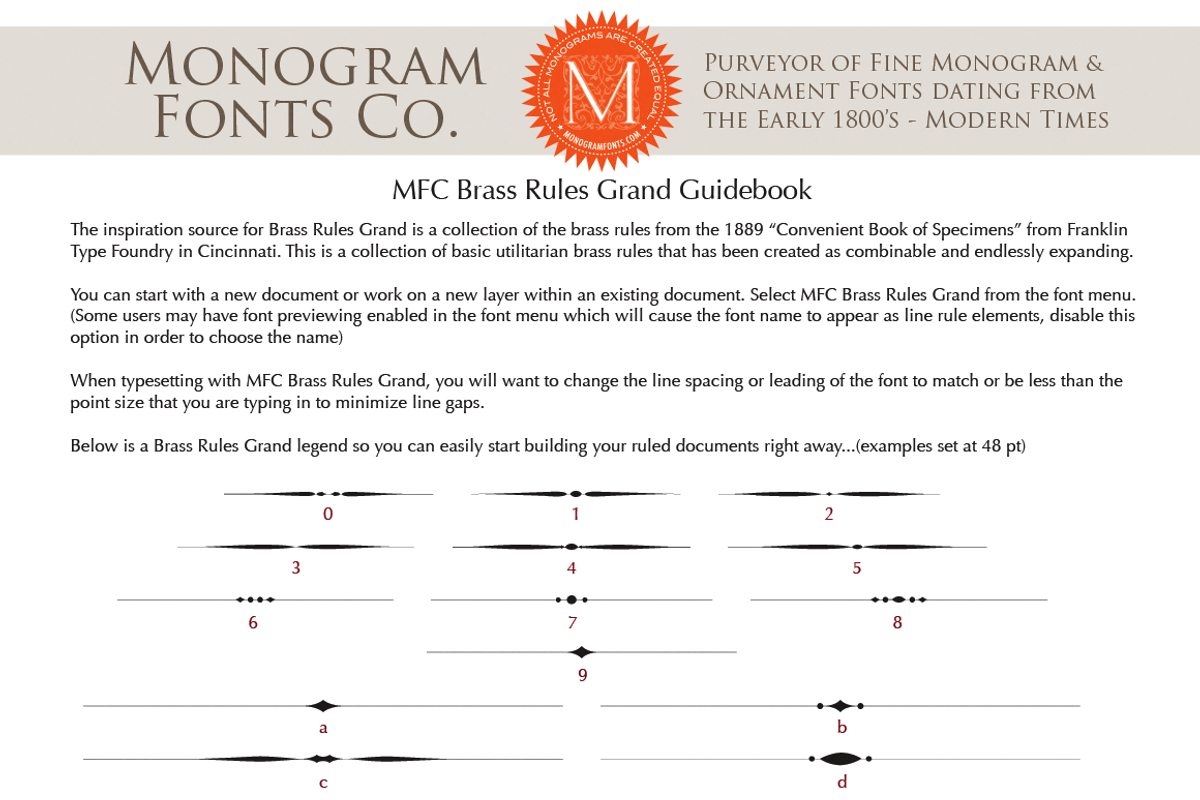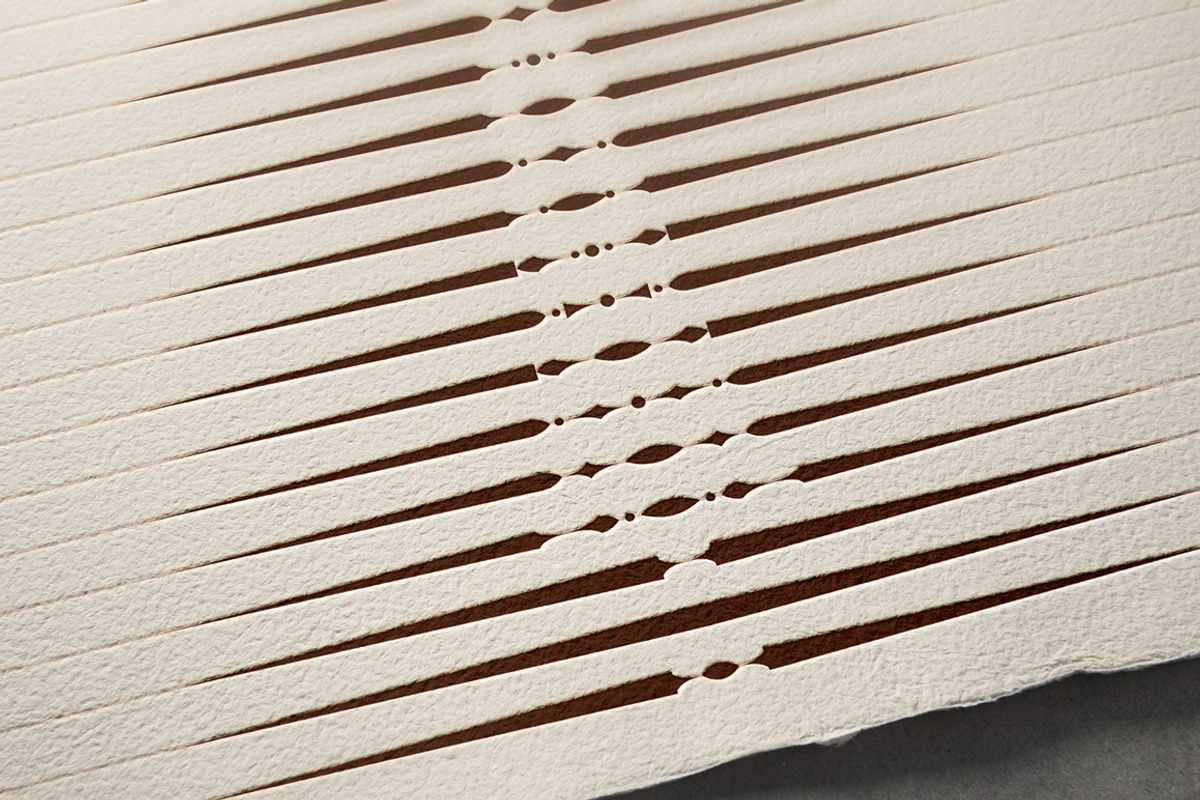
MFC Brass Rules Grand
MFC Brass Rules Grand by Monogram Fonts Co. is a font selected for branding, posters, packaging, typography.
- Filling the Numerals and all Capital and Lowercase glyph slots are a total of 62 traditional Brass Rule designs, all extendable by combining
MFC Brass Rules Grand by Monogram Fonts Co. fits naturally into Branding, posters, packaging, typography.